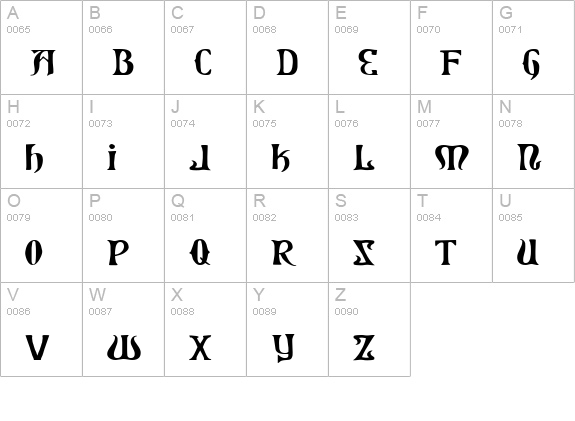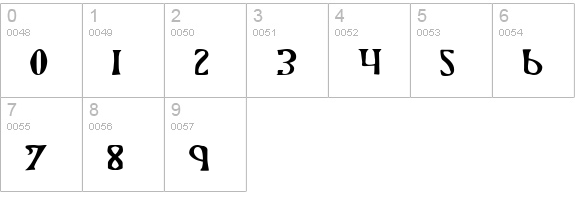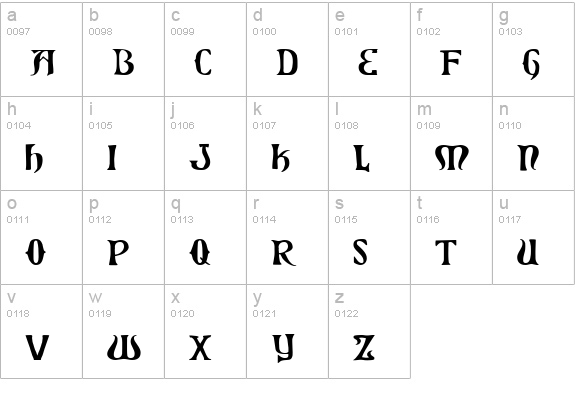
Xiphos Expanded is a distinctive, extended-width variant in the Xiphos typeface family \xE2\x80\x94 well suited to design and typography projects.
Xiphos Expanded font is a modern and versatile typeface that exudes sophistication and elegance. With its sleek lines and contemporary style, this font is perfect for a wide range of design projects, from branding to editorial layouts. The extended version of Xiphos offers even more flexibility and creativity for your designs. What sets Xiphos Expanded font apart is its unique character shapes and clean, crisp letterforms that make any text stand out. Whether you're designing a logo, website, or print materials, Xiphos Expanded font will add a touch of refinement to your work. The best part? Xiphos Expanded font is available for free download at FontsMarket.com. This means you can easily access and use this stunning font in your projects without any cost. Don't miss out on the opportunity to elevate your designs with Xiphos Expanded font today!